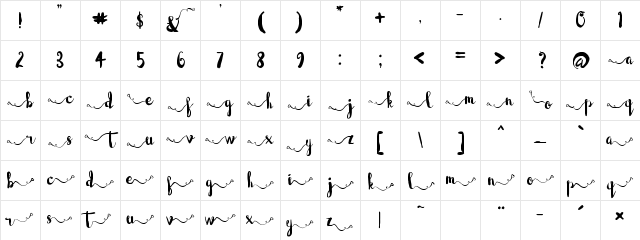
Complete Blushingly Hollow Heart Swashes Regular glyph index. Displaying only characters natively supported by Blushingly Hollow Heart Swashes Regular font.
Blushingly Hollow Heart Swashes flows with the natural rhythm of handwritten lettering, making it ideal for designs that call for warmth and personal expression.
Font Pairing: Combine Blushingly Hollow Heart Swashes with a simple geometric sans for maximum contrast - the tension between flowing curves and clean structure is a classic typographic pairing.
Pro Tip: Use Blushingly Hollow Heart Swashes for short runs of text - names, titles, or taglines. Extended body copy in script faces tires the eye quickly.